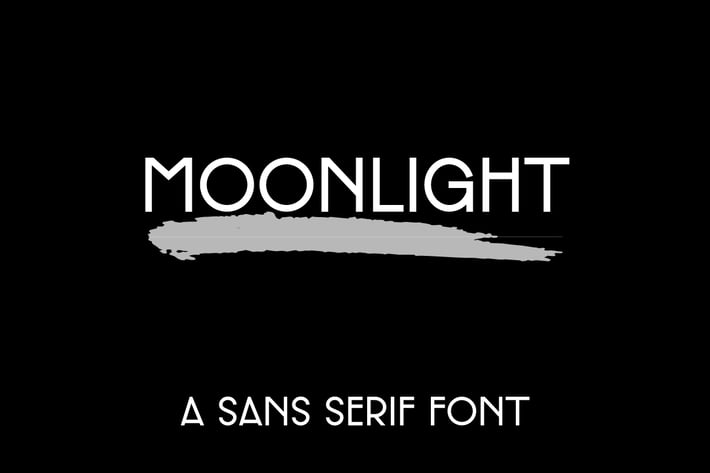
Moonlight - Sans Serif Font
Introducing Moonlight, a simple and modern sans serif font..
So perfect for you who needs a typeface for logo designs, magazine, social media, brochure, and many more.
+ Uppercase
+ Numerals